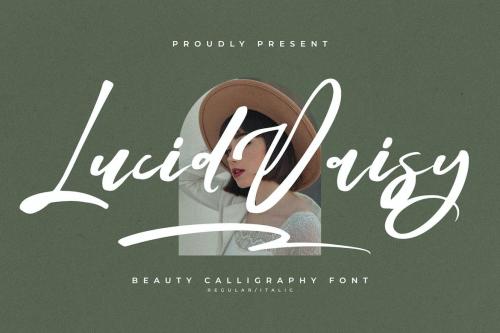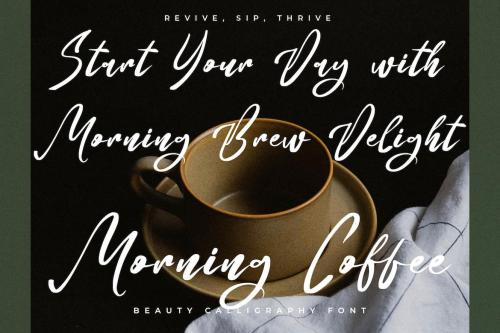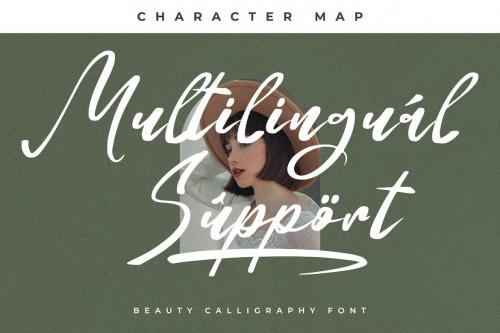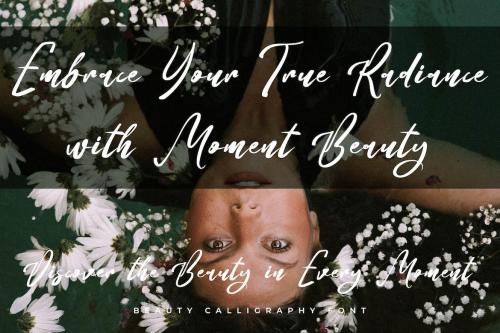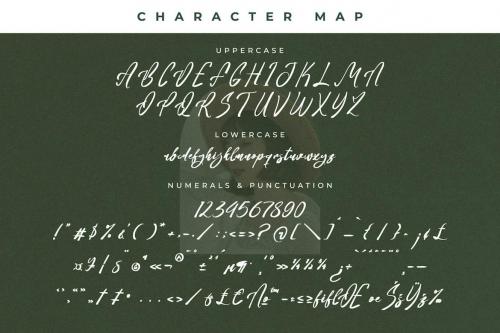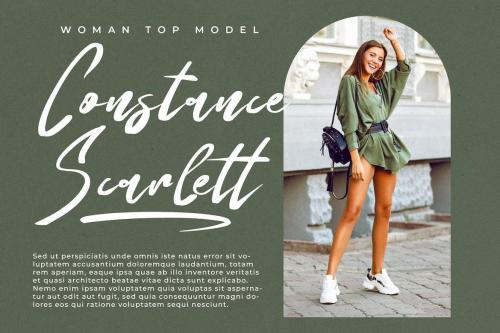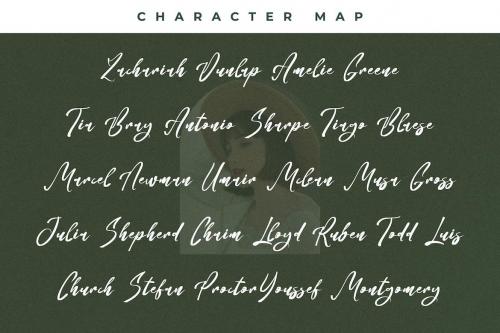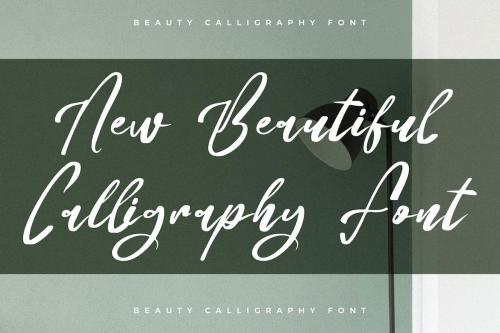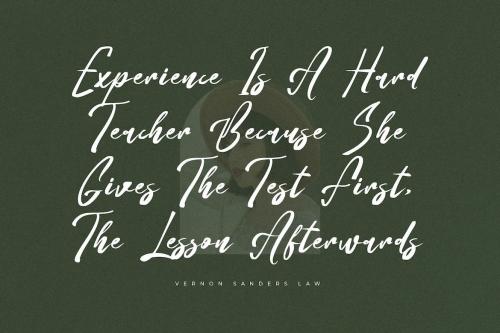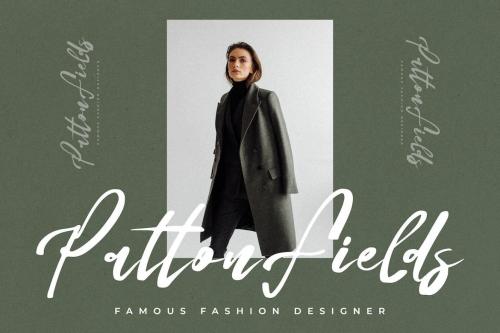
露西亚 Daisy 草书字体
Lucid Daisy Calligraphy Font
Hi ladies & gentlemen, this is one of our fonts suitable to complement your digital and printed creative products.
This font is perfect for posters, social media posts, branding, personal projects, etc.